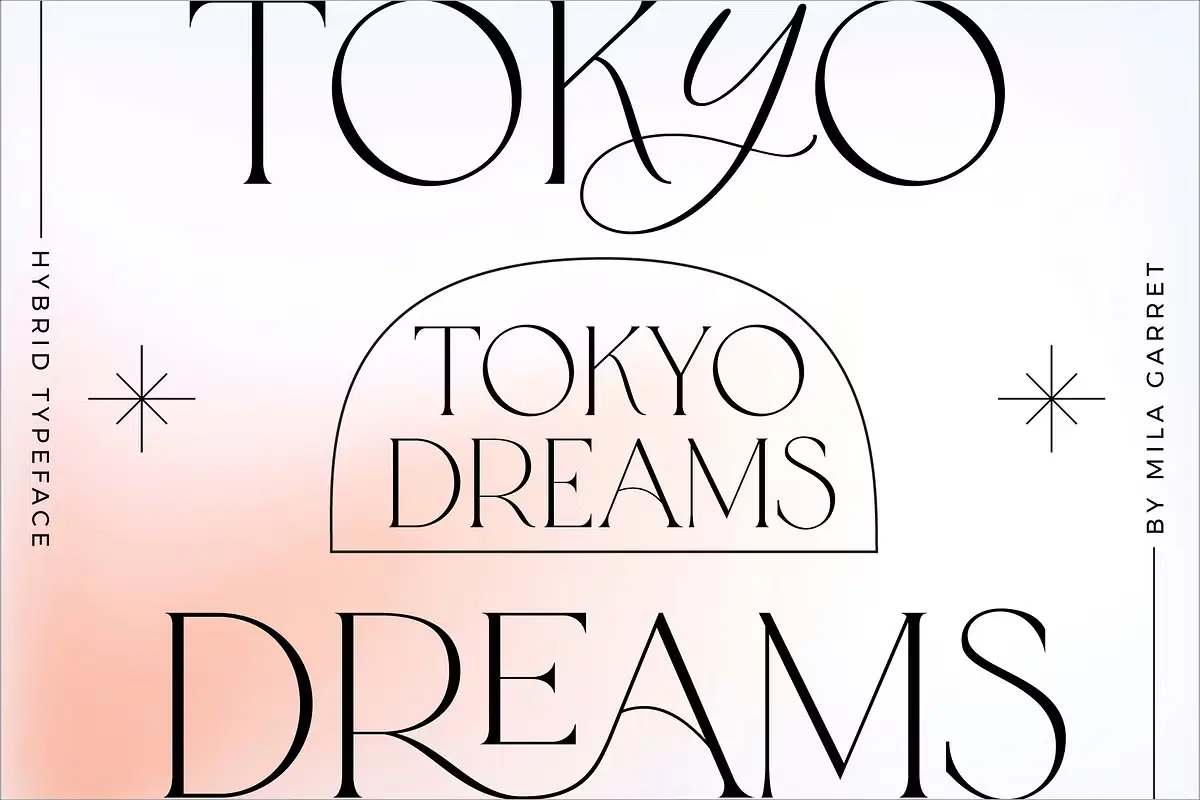
Tokyo Dreams Font
Introducing Tokyo Dreams a highly functional serif display typeface that comes with three styles of application—a clean minimal serif, a ligature-based headline font, and a hybrid of serif and script characters.
As a font with 99 unique ligatures, Tokyo Dreams makes it easy to create custom typography that is sure to grab attention for logos, headlines, and quotations. You will see it in action when you try typing in all lower case letters in the type tester.
It is a hybrid font which includes both serif and script fonts and can allow script letters to be put in any position in a word. Moreover, These script letters comes with the font as synopses in the main font or through the uppercase in the hybrid style and give a artistic and hand made look to logos and display titles.
Tokyo Dreams even in its basic version looks like a beautiful and refined serif font that is an ideal choice for sleek designs. Tokyo Dreams is a perfect way to make any modern logo, website, or social media quote, and basically any wedding branding, look elegant and tailor-made.